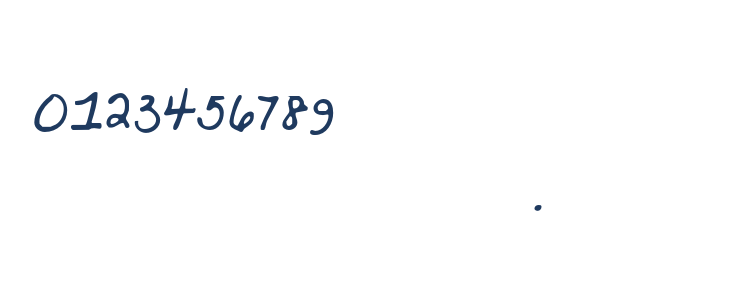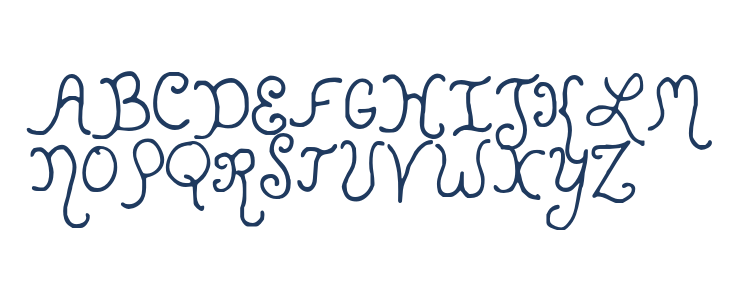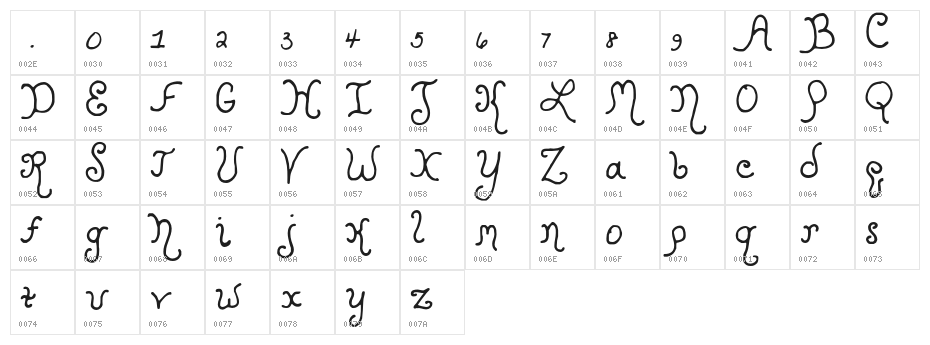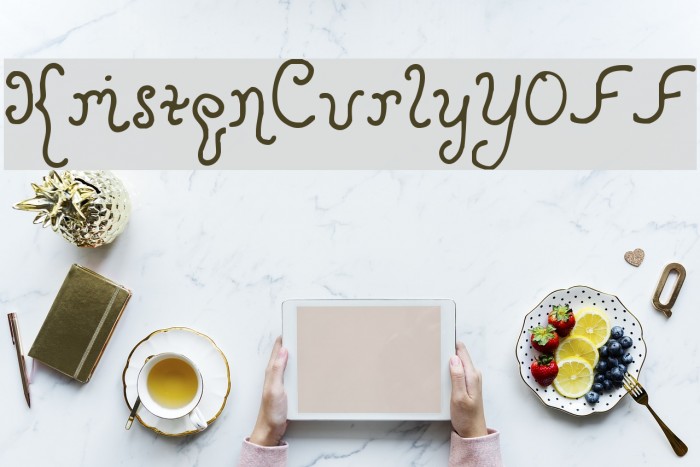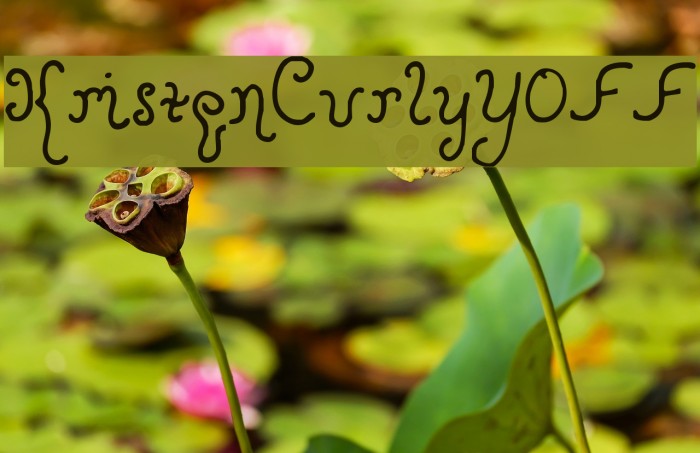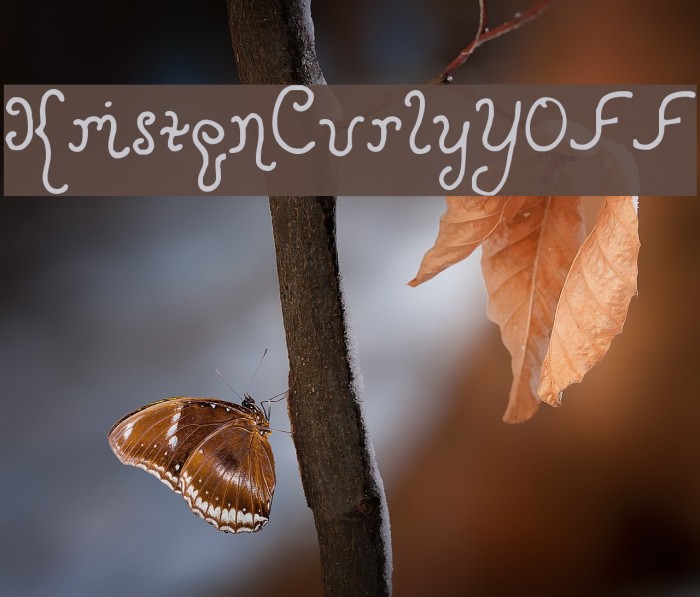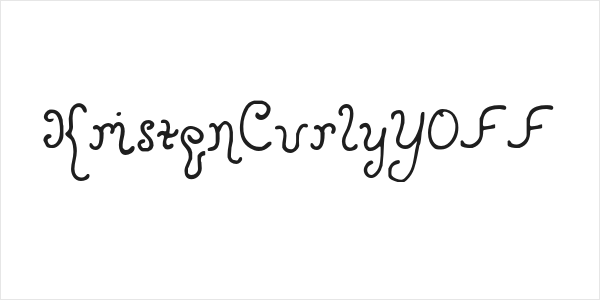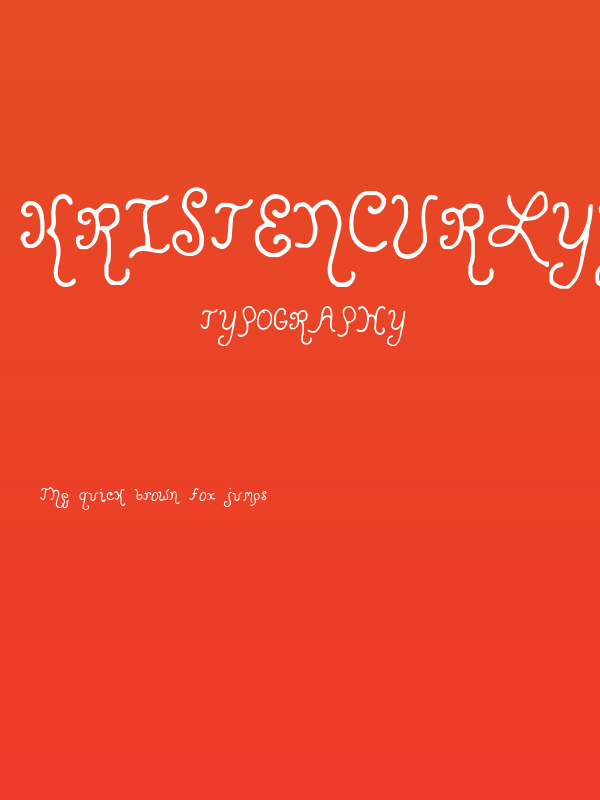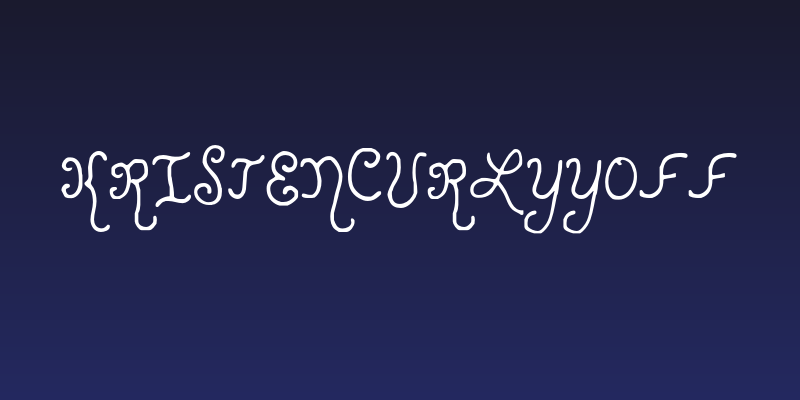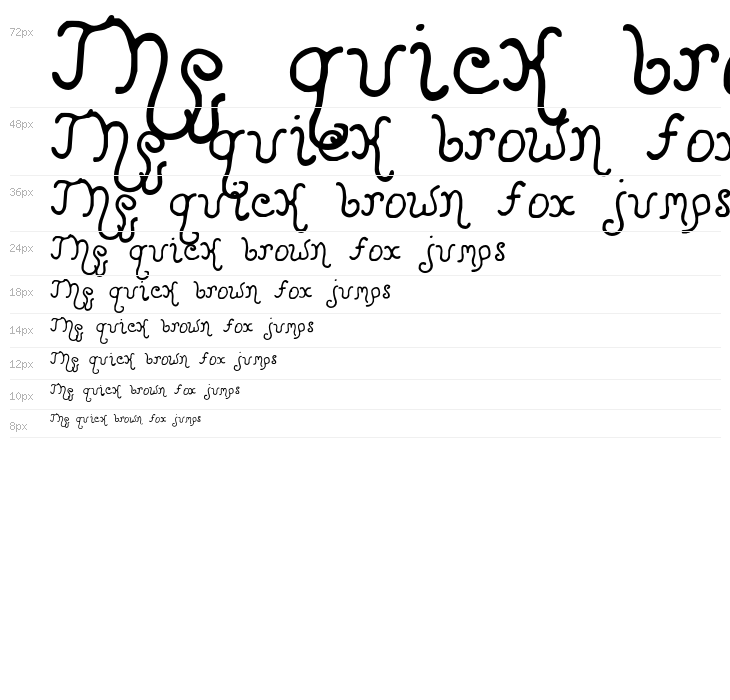
KristenCurlyYOFF Font
KristenCurlyYOFF Description
This font features a playful and whimsical design with curly, flowing lines that give it a handwritten appearance. The characters are uniquely crafted with loops and swirls, adding a sense of movement and creativity. The uppercase letters maintain a consistent height, while the lowercase letters exhibit a charming irregularity that enhances the font's informal style. Numbers are bold and clear, matching the overall aesthetic. The special characters are integrated seamlessly, maintaining the font's distinctive flair. This font is ideal for projects that require a touch of personality and artistic expression.
| Use Case | Logos, Invitations, Creative projects |
| Proposed Projects | Perfect for greeting cards, children's books, playful branding, and creative invitations. |